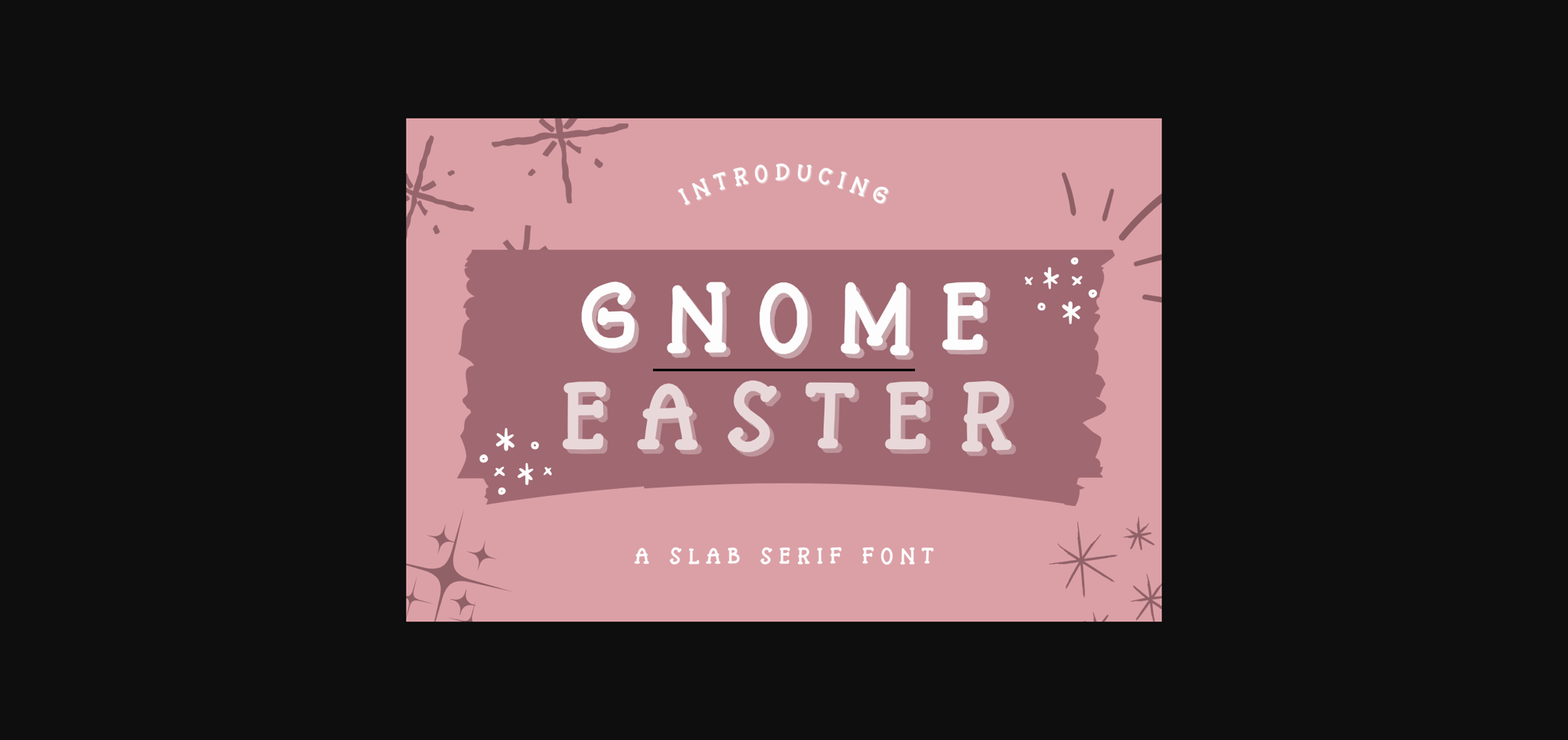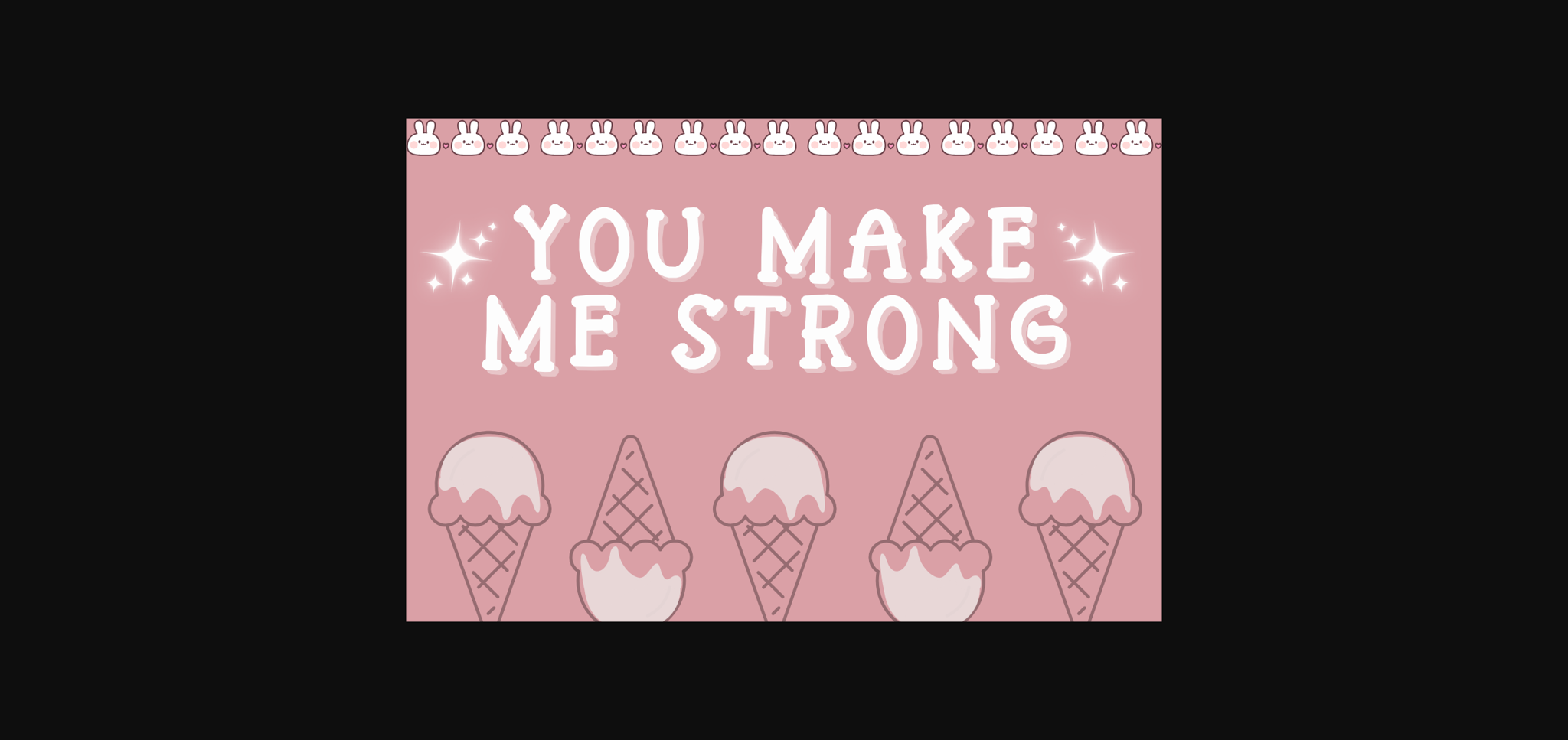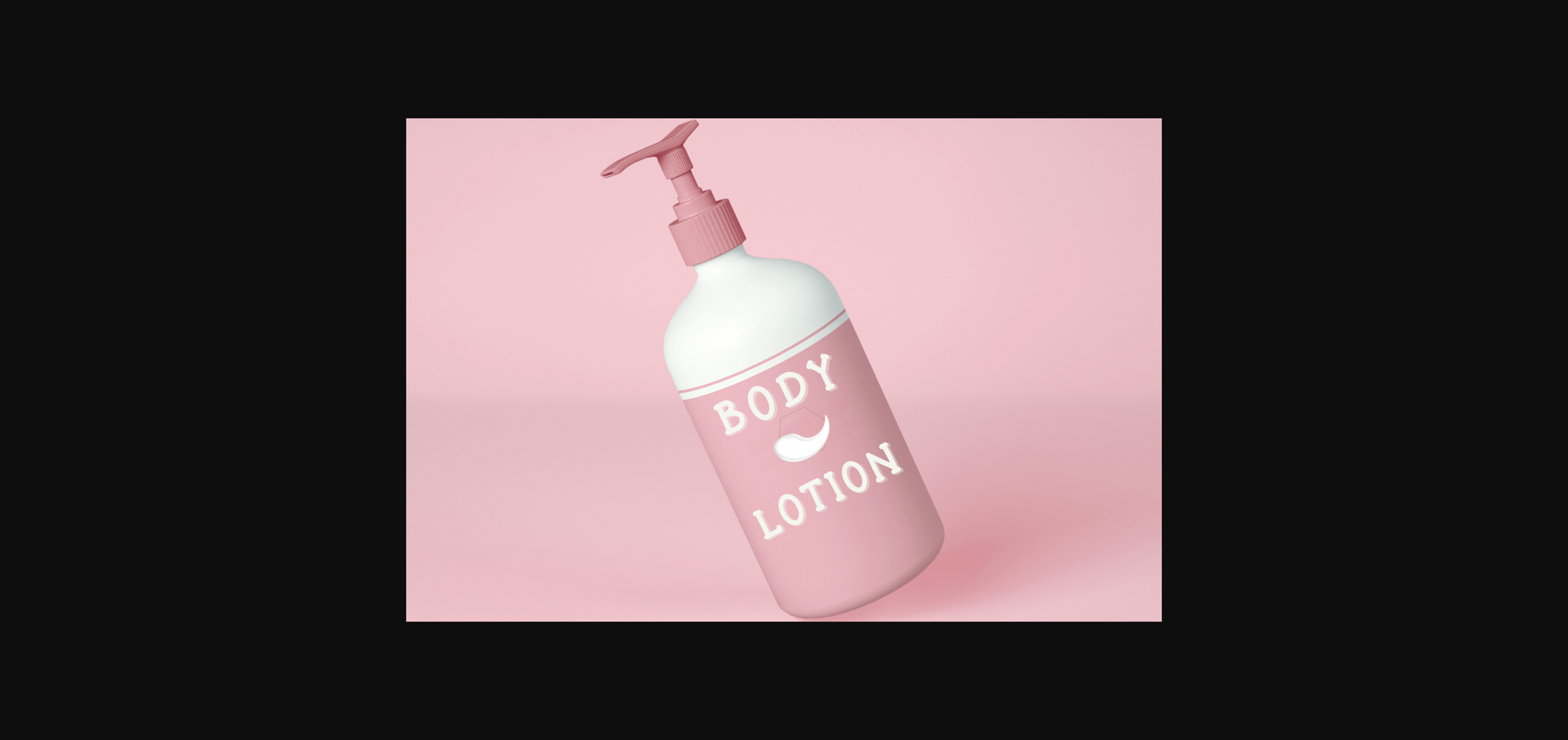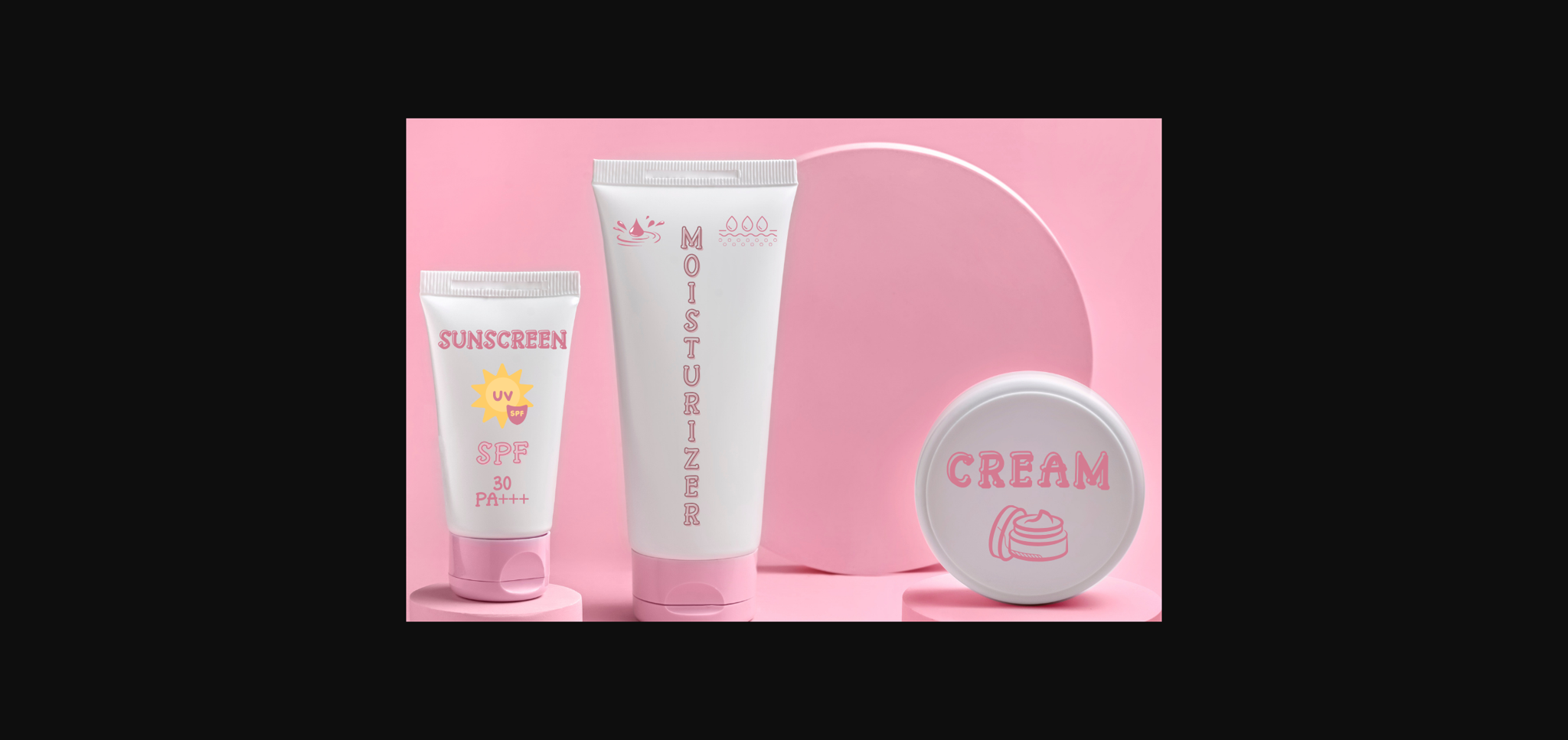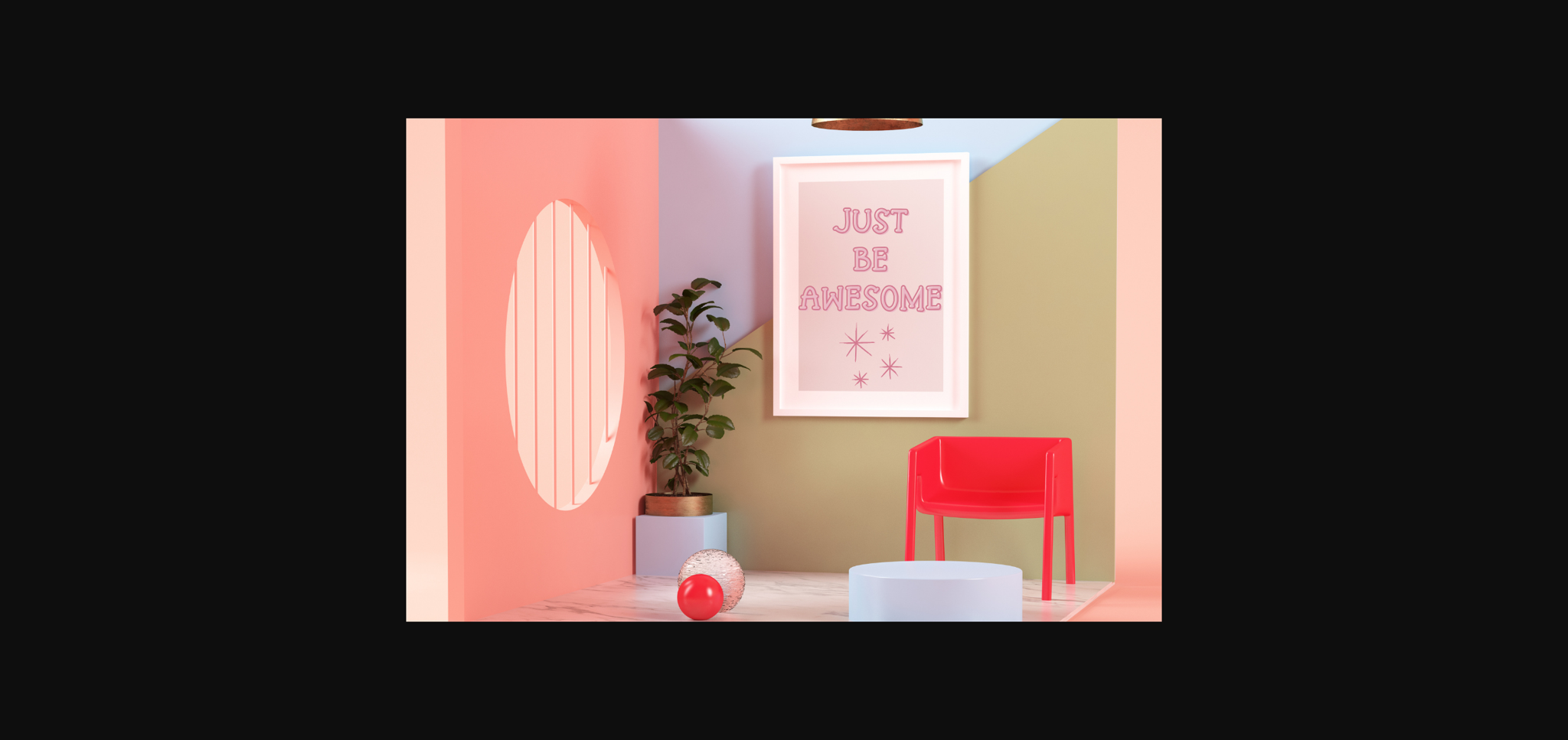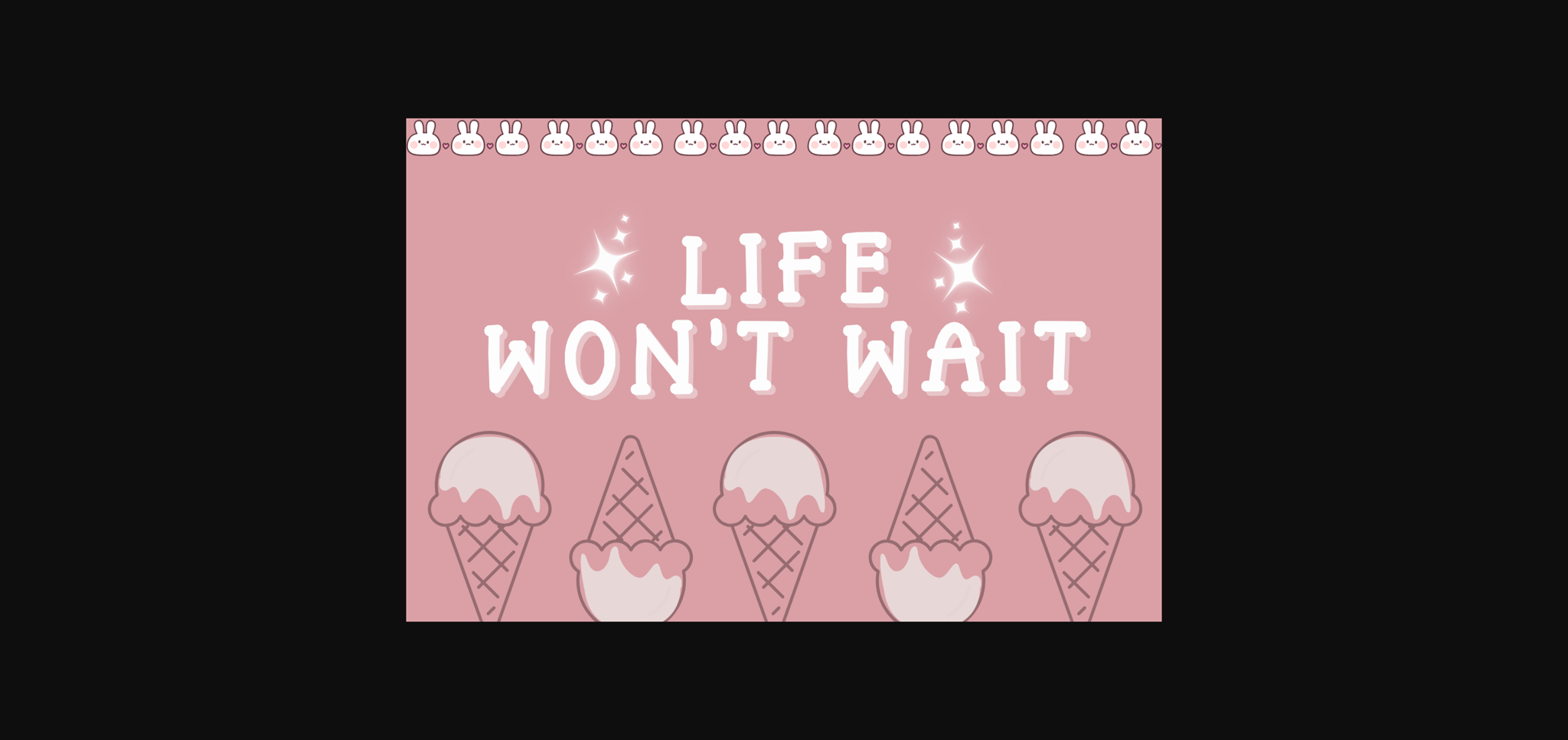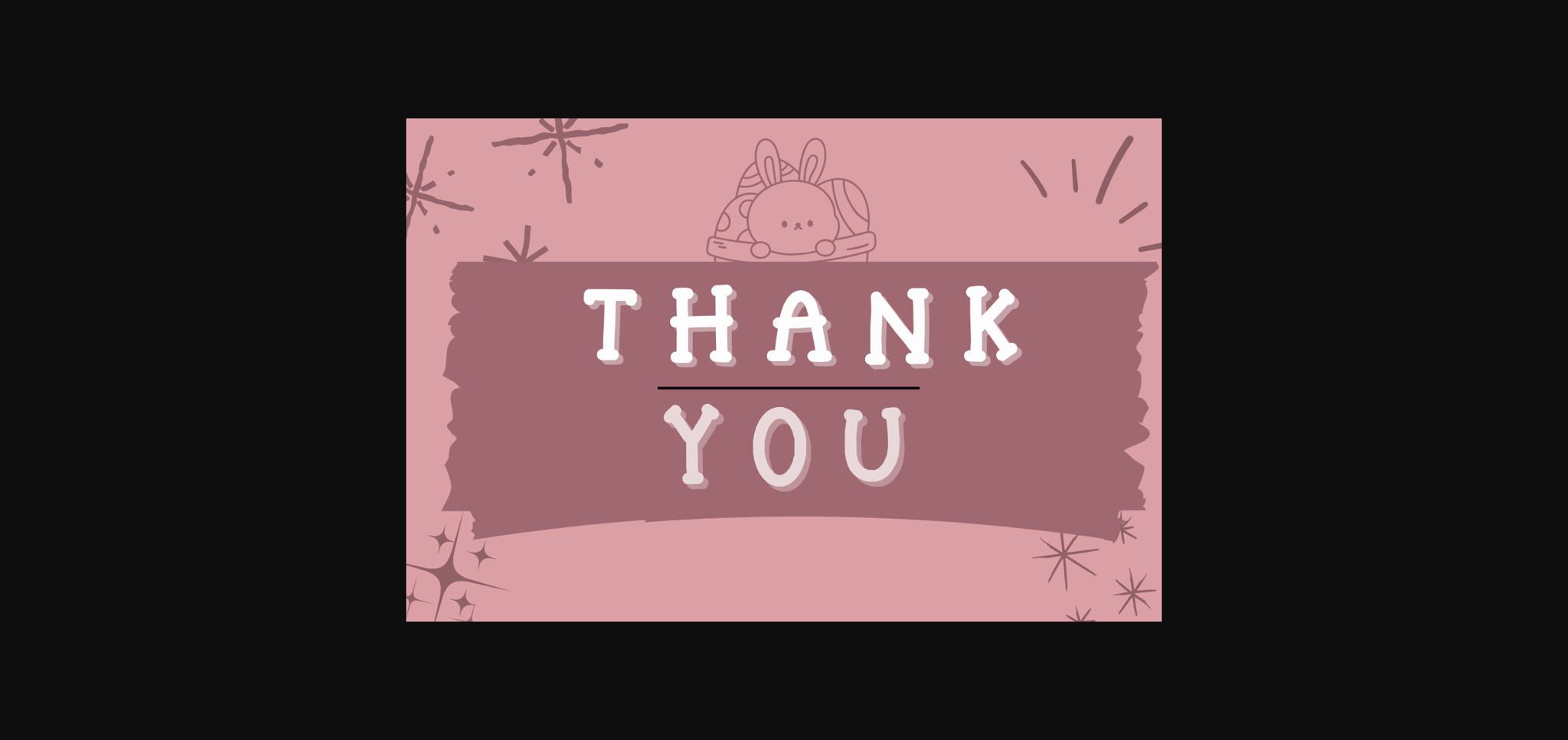
HomeSans Serif FontsGnome Easter Font Sans Serif Fonts Gnome Easter Font FacebookXPinterestWhatsApp 1 of 9 ... Gnome Easter Font Poster 2... Gnome Easter Font Poster 3... Gnome Easter Font Poster 4... Gnome Easter Font Poster 5... Gnome Easter Font Poster 6... Gnome Easter Font Poster 7... Gnome Easter Font Poster 8... Gnome Easter Font Poster 9... About Gnome Easter Font Gnome Easter is a cute and adorable slab serif font. Perfect for social media, posters, stickers, notebooks and so much more. DOWNLOAD NOW People also explored Mango Bite Font Canggu Font Alika Tree Font Coristya Font Angela Font Fantina Font Bruta Woodcut Font Black North Font Codename Fx 259 0 TagsGnome Easter Font Previous articleKhonteks FontNext articlePink Rabbit Font LEAVE A REPLY Cancel reply Comment: Please enter your comment! Name:* Please enter your name here Email:* You have entered an incorrect email address! Please enter your email address here Website: Save my name, email, and website in this browser for the next time I comment. Personal Use Free Love Memories Personal Use Free Read more about this font Spectrashell Personal Use Free Read more about this font Spaghetti Personal Use Free Read more about this font Yesstea Personal Use Free Read more about this font BLOG How to Install and Use Fonts on Windows, macOS, and Web Projects How to Install and Use Fonts on Windows, macOS, and Web Projects Fonts are a crucial part of design and branding. Whether you’re designing a... Where to Buy American Fonts Online in 2024 Best Fonts for T-Shirt Design – Top 2025 Picks Free Fonts Risk: Why Free Fonts Can Be Dangerous for Designers